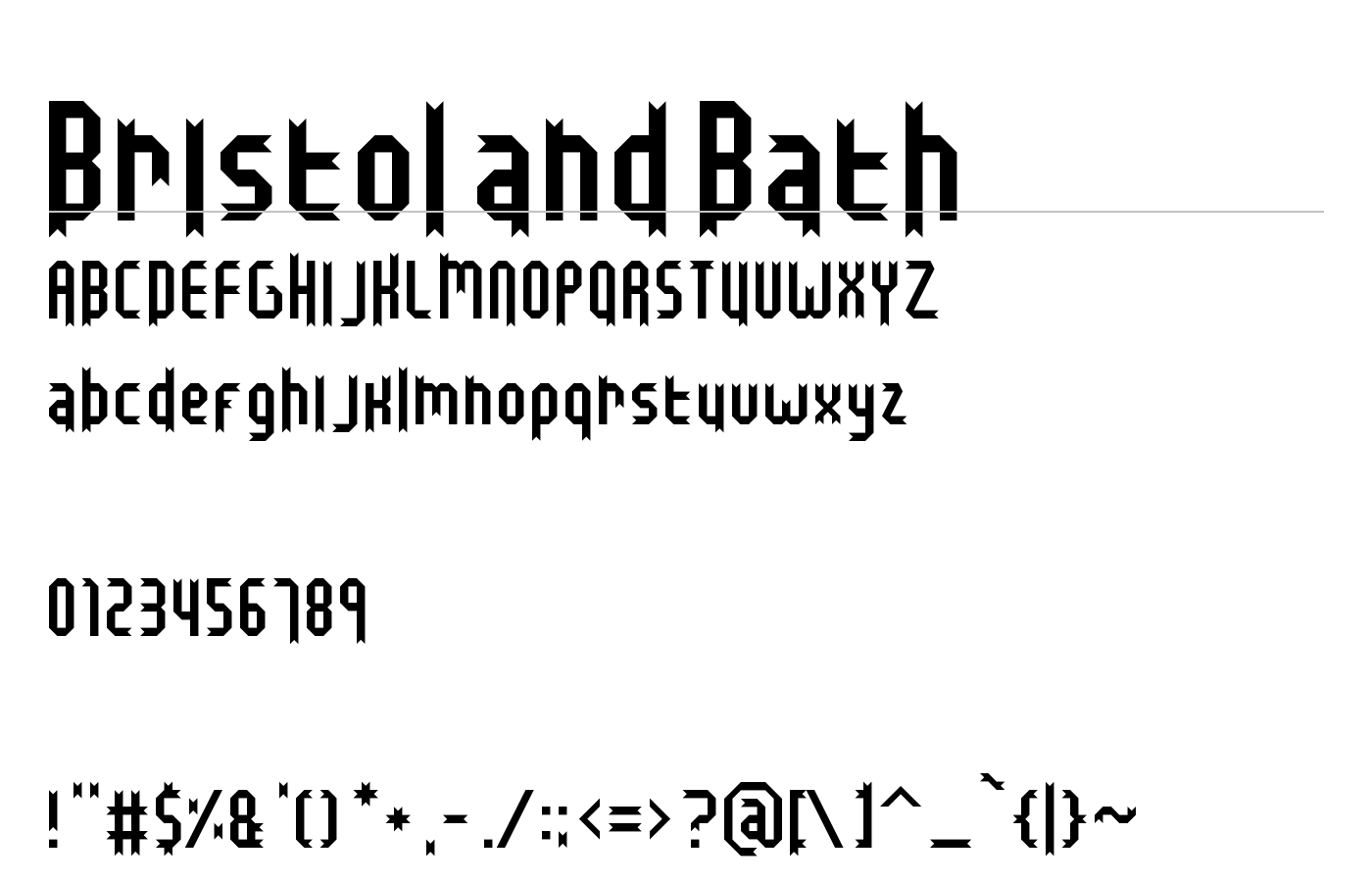
Bristol and Bath is a bold, condensed sans serif font with a distinctive geometric style and sharp, angular strokes that create a striking, almost futuristic appearance. Its high contrast and unique triangular cut details give it a strong, edgy personality, making it ideal for attention-grabbing headlines, posters, and branding that seeks a modern, avant-garde vibe. This font works best where impact and visual uniqueness are key, especially in creative and urban design contexts.
Bristol and Bath Font
About Bristol and Bath Font